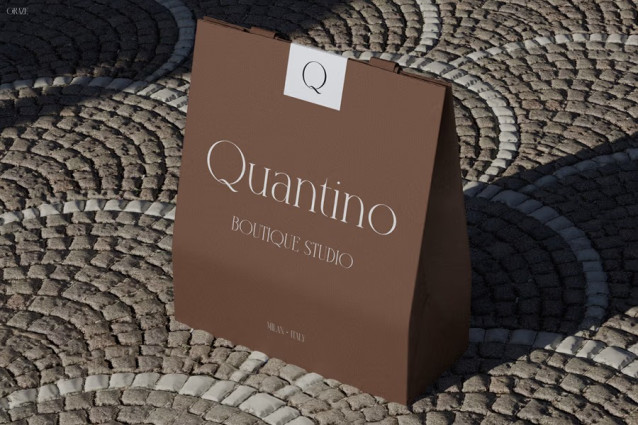
Graze Font is a captivating serif typeface that effortlessly blends timeless beauty with modern sophistication. Each letter is designed with precision, giving every project a sense of calm balance and visual luxury. Moreover, its sleek contrast, refined spacing, and graceful flow create a polished look that instantly elevates any design.
Graze is not just another font—it’s a creative statement. Its subtle curves bring warmth, while the sharp serifs add structure and power. As a result, your words appear confident yet sophisticated. Whether you’re designing for social media, branding, or editorial work, this font turns ordinary layouts into elegant expressions of style.
Furthermore, Instagram Font Graze offers perfect readability and visual impact. Its mix of thin and thick strokes gives a dynamic rhythm to your text, while the proportions maintain harmony and clarity. Therefore, every letter feels intentional and beautifully balanced. With its refined aesthetic, Graze stands out as a must-have for creators who value elegance, artistry, and emotion in their typography.